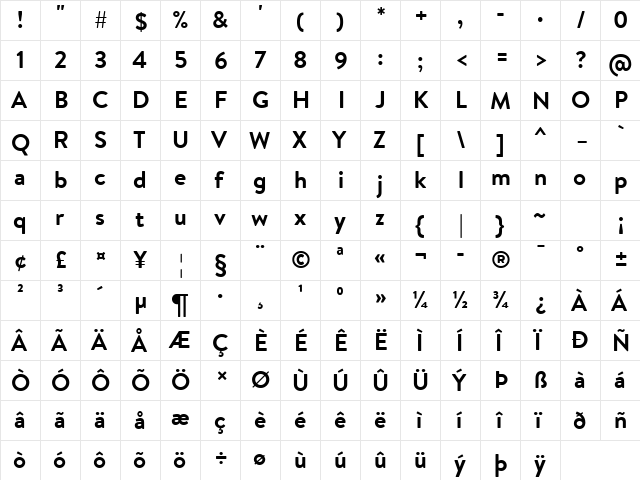
Brandon Text Bold Regular
| Foundry | Hannes von Doehren |
| Designer | Hannes von Doehren |
Design Context for Brandon Text Bold Typeface
Brandon Text Bold takes a measured approach to typography — its balanced proportions and neutral character make it a reliable workhorse for both digital and print work. Its bold stroke weight gives it real presence on the page.